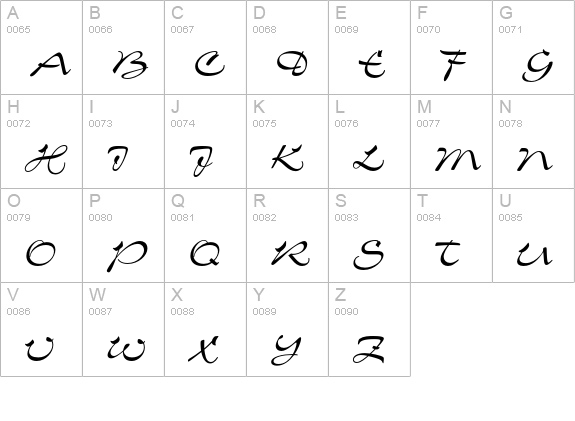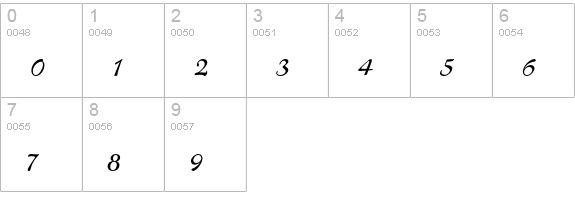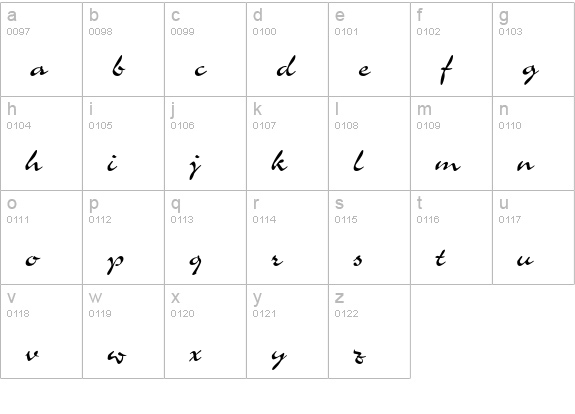
Charme font is a delightful and elegant typeface that exudes charm and sophistication. Its graceful curves and stylish flourishes make it perfect for adding a touch of class to any design project. Whether you're creating wedding invitations, branding materials, or social media graphics, Charme font is sure to make a lasting impression. The best part? Charme font is completely free to download at FontsMarket.com. This means you can easily access this stunning font and use it in your projects without any cost. Don't miss out on the opportunity to elevate your designs with the beauty of Charme font - download it today and let your creativity shine!